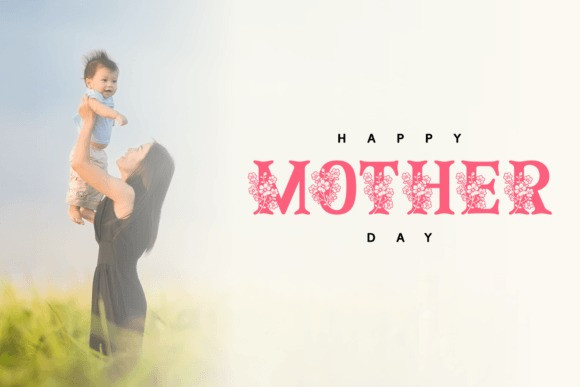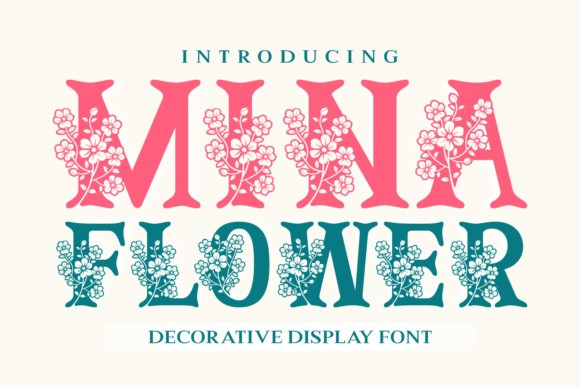
Mina Flower Font
Mina Flower Font is a decorative font that features whimsical floral elements incorporated into its letterforms. Its unique design makes it perfect for projects that want to evoke a sense of femininity, romance, or playfulness. The intricate floral details and elegant curves give Mina Flower a luxurious and sophisticated feel, making it an excellent choice for branding, invitations, and other high-end design projects.